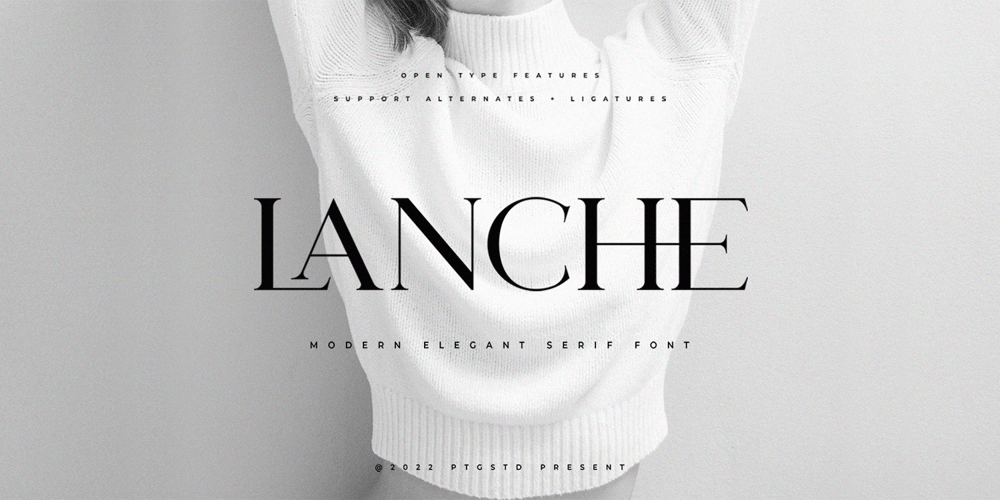
Lanche Font Family was designed by Burhan Adiatma and published by pentagonistudio. Lanche contains 1 styles and family package options. Lanche Is An Modern Elegant Serif Font Inspired By Elegant Serif TypefaceFAQ’s :Where are the OTF’s? They are included in a download link( in a text file) in your main download file. 1 user 2 computers installation (Desktop License) You may NOT use for broadcast or Cinema/Motion Picture. You may NOT resell this font in any platform without further permission from designer. Do NOT embed font files in app/game/e-pub (for desktop license) You may NOT use the fonts in templates for sale/free. ( web/print/app ) For other license use please contact us.SOFTWARE REQUIREMENTS :Fonts and alternate : No special software required they may be used in any basic program /website apps that allows standard fonts That’s it folks! You can go ahead and get cracking :)Follow My Shop For Upcoming Updates Including Additional Glyphs And Language Support. And Please Message Me If You Want Your Language Included or If There Are Any Features or Glyph Requests, Feel Free to Send me A Message. Have a Good Day !